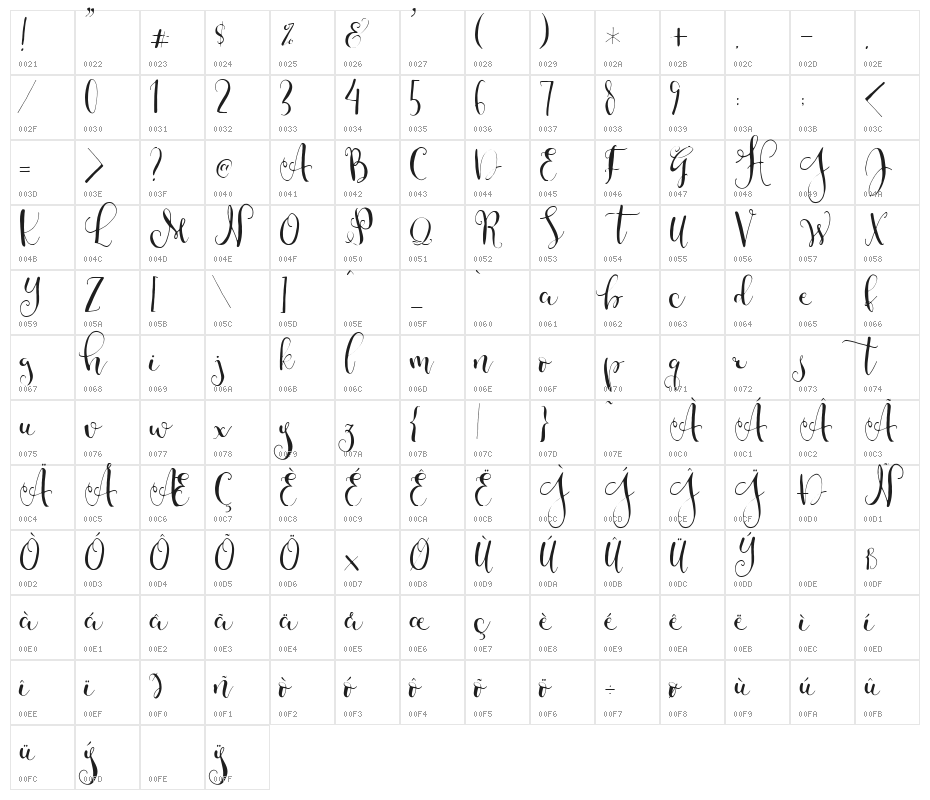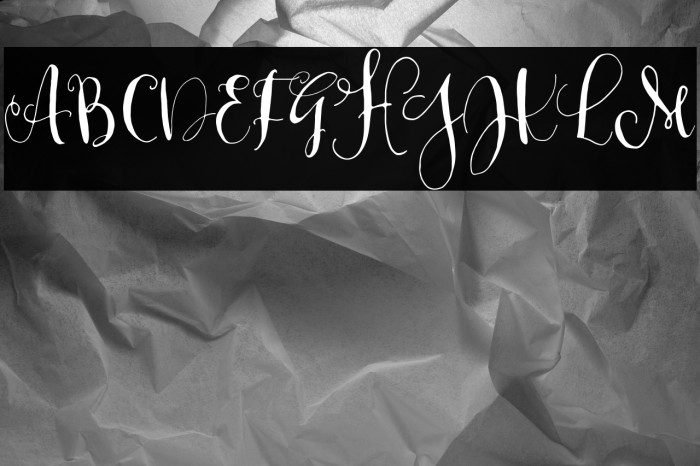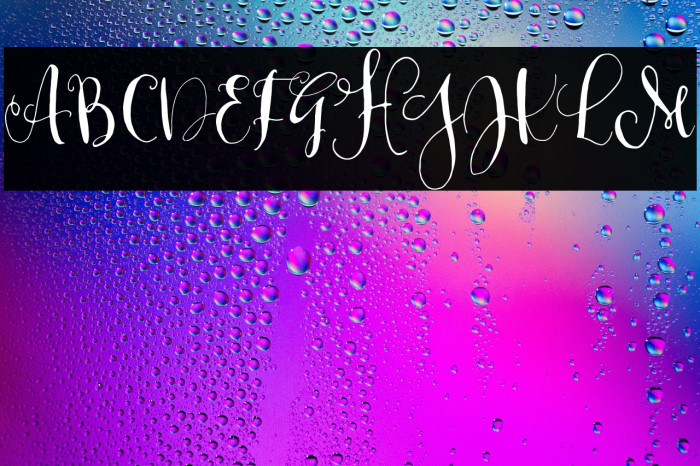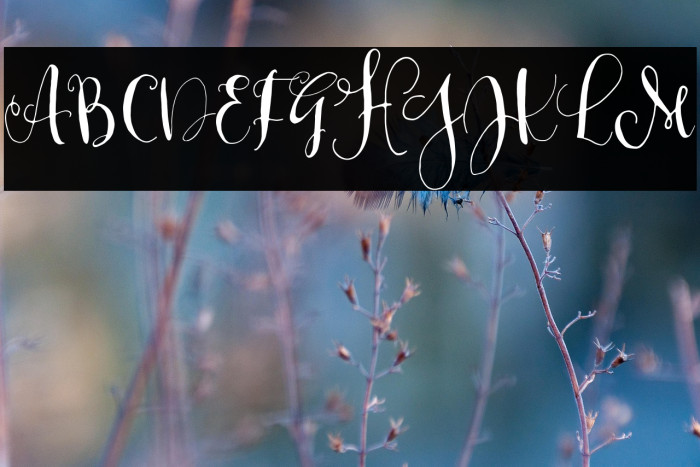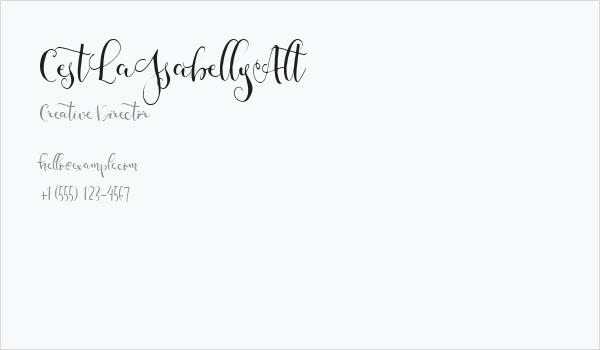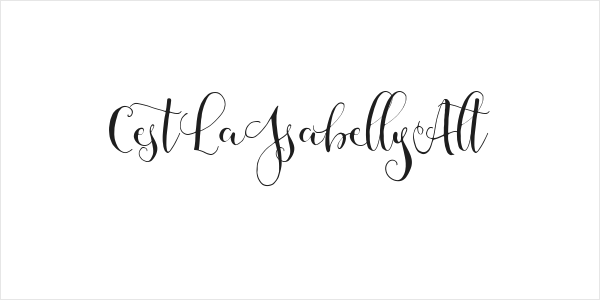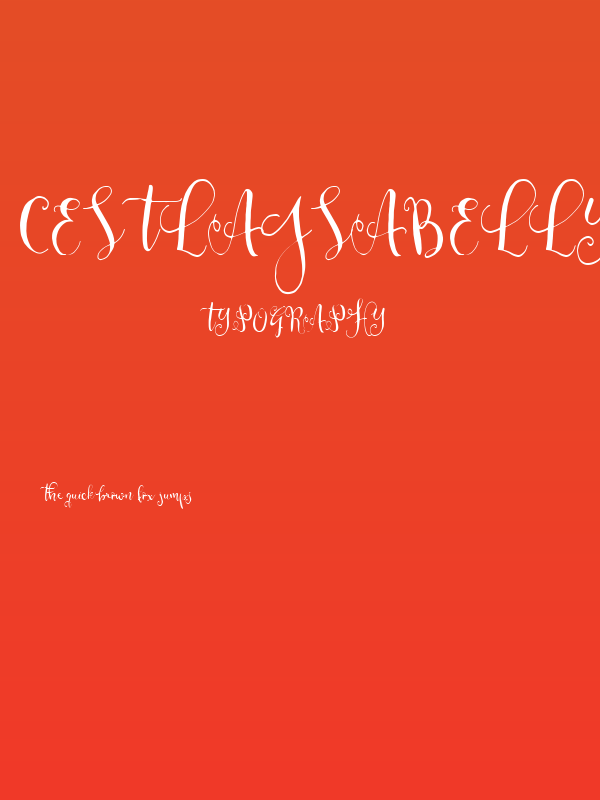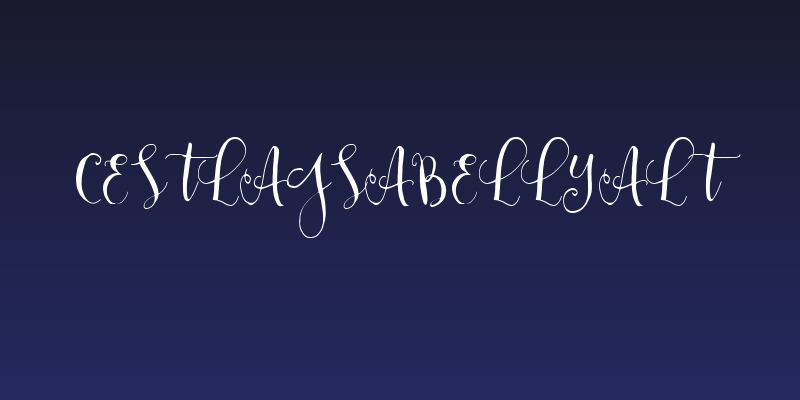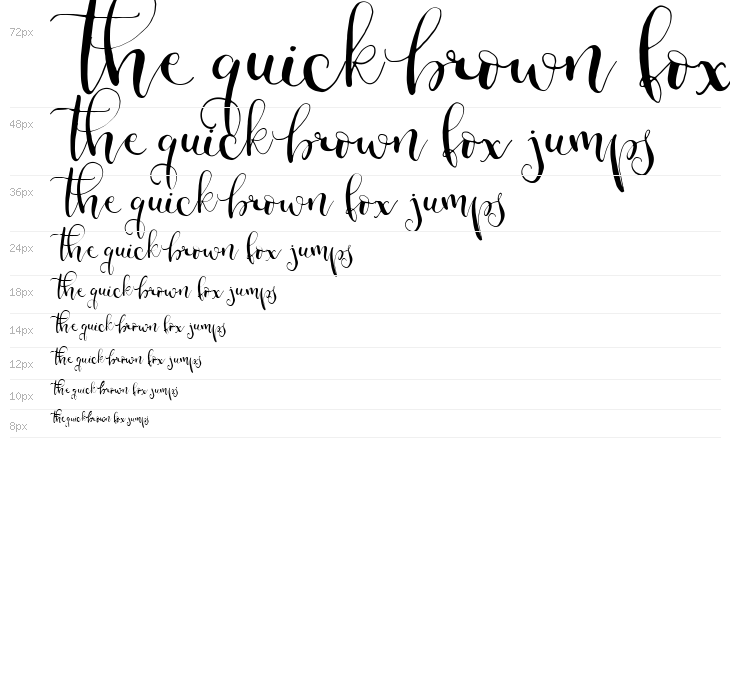
CestLaIsabellyAlt Font
CestLaIsabellyAlt Description
This font features an elegant and flowing script style, characterized by its intricate swirls and loops. The uppercase letters are bold and expressive, with dramatic flourishes that give a sense of movement and grace. The lowercase letters maintain a consistent style, with smooth curves and a slightly more restrained design. Numbers are tall and slender, complementing the overall aesthetic. Special characters are thoughtfully integrated, maintaining the decorative theme. This font exudes a sense of sophistication and artistic flair, making it ideal for projects that require a touch of elegance.